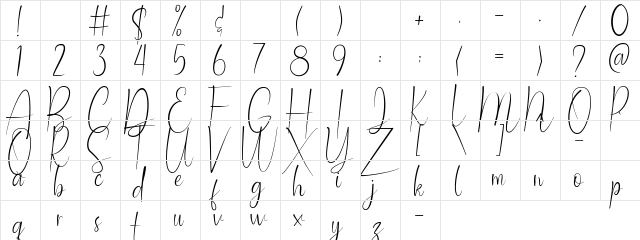
Ballroom Demo Regular
| Designer | Sabertype Studio |
Design Context for Ballroom Demo Typeface
Ballroom Demo is a composed and adaptable typeface that performs quietly and consistently across a wide range of design contexts.